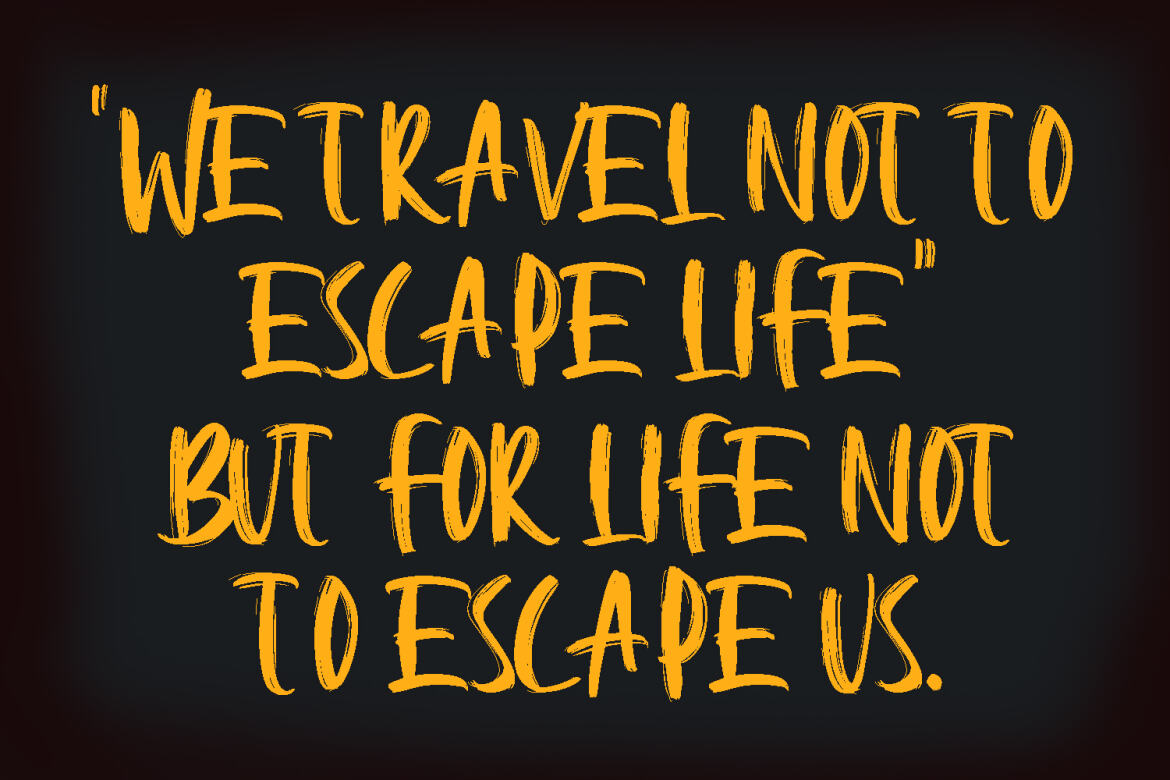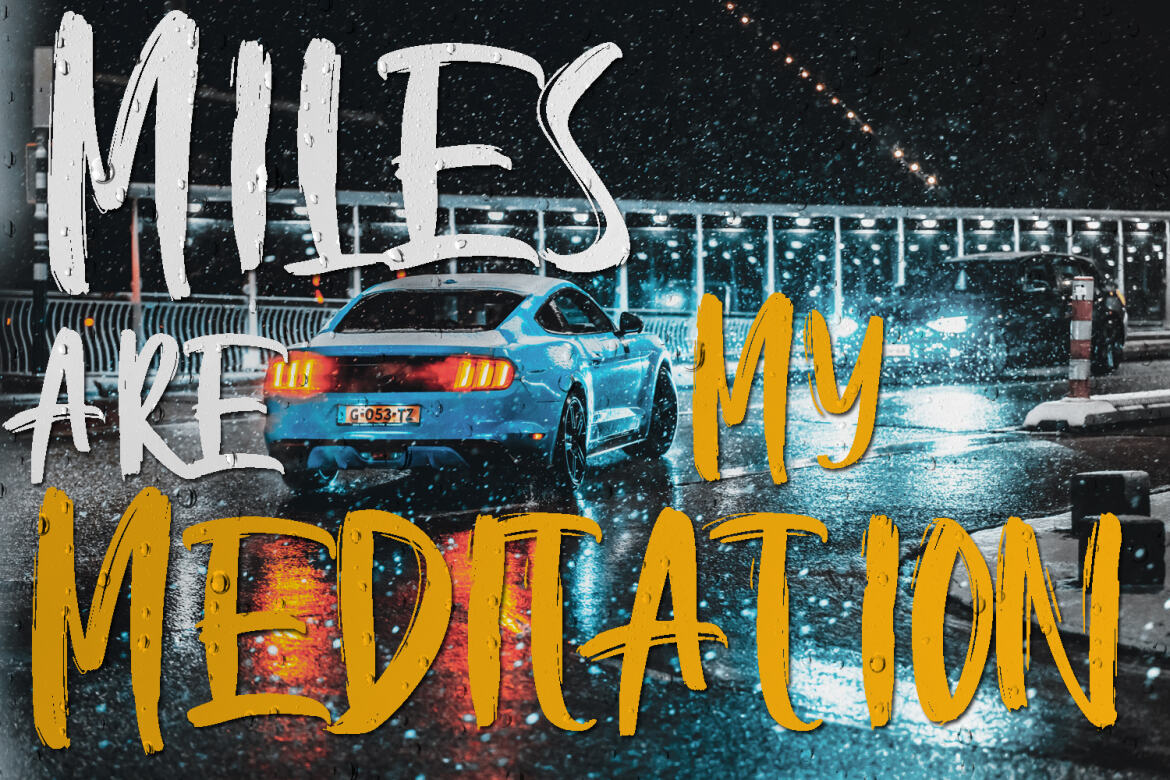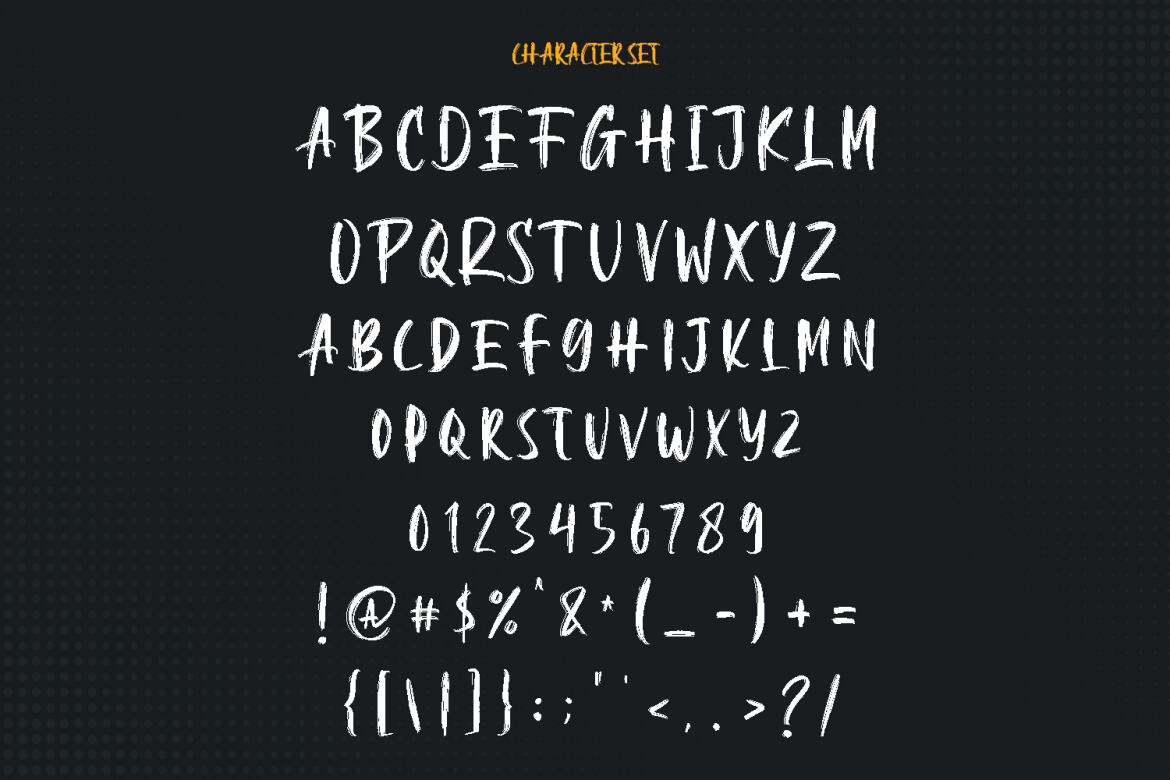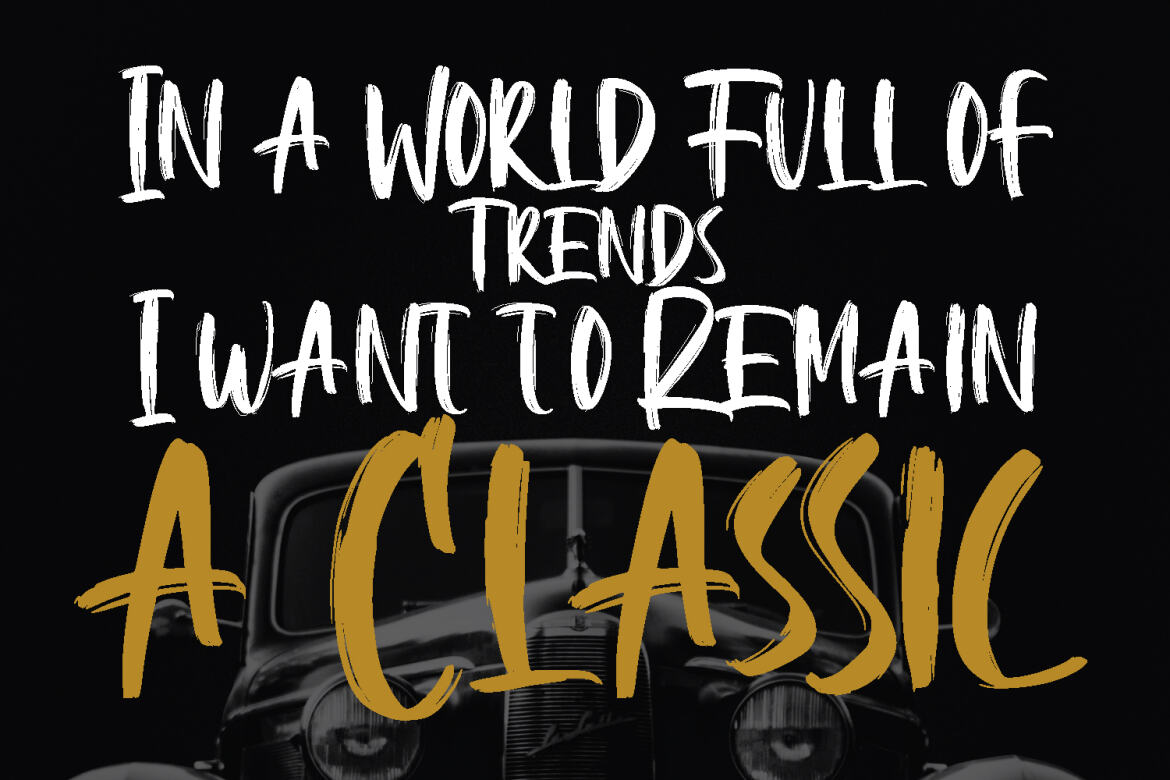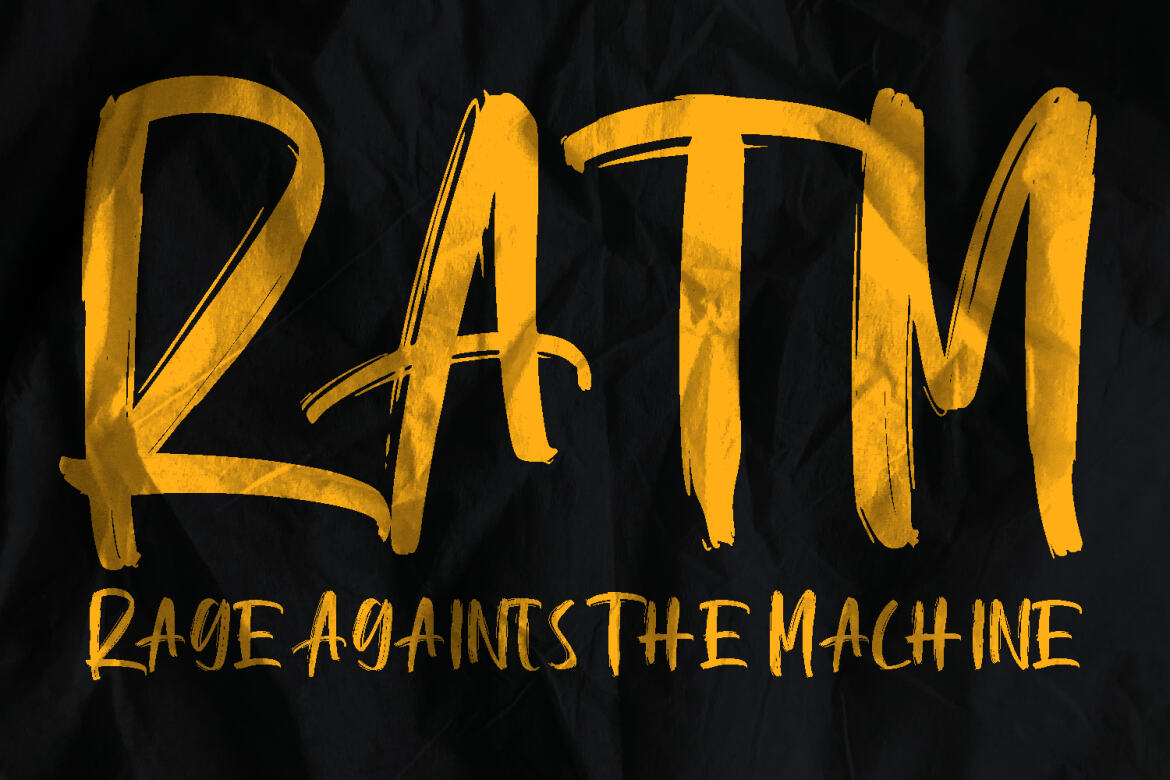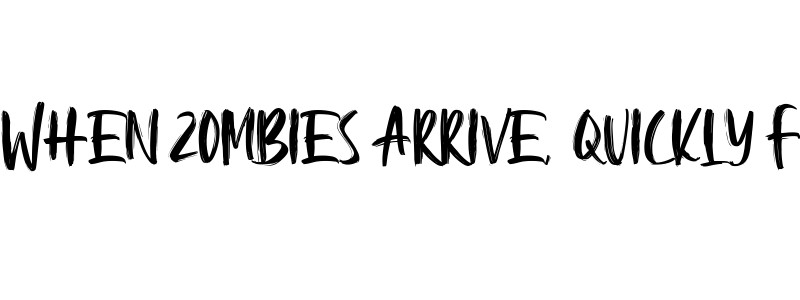
Hogla Brush FREE Font
Hogla Brush is an upright brush font. With medium rough stroke, fun character with a bit of ligatures and alternates. To give you an extra creative work. Hogla Brush font support multilingual more than 100+ language. This font is good for logo design, Social media, Movie Titles, Books Titles, a short text even a long text letter and good for your secondary text font with sans or serif. Make a stunning work with Hogla Brush Font.